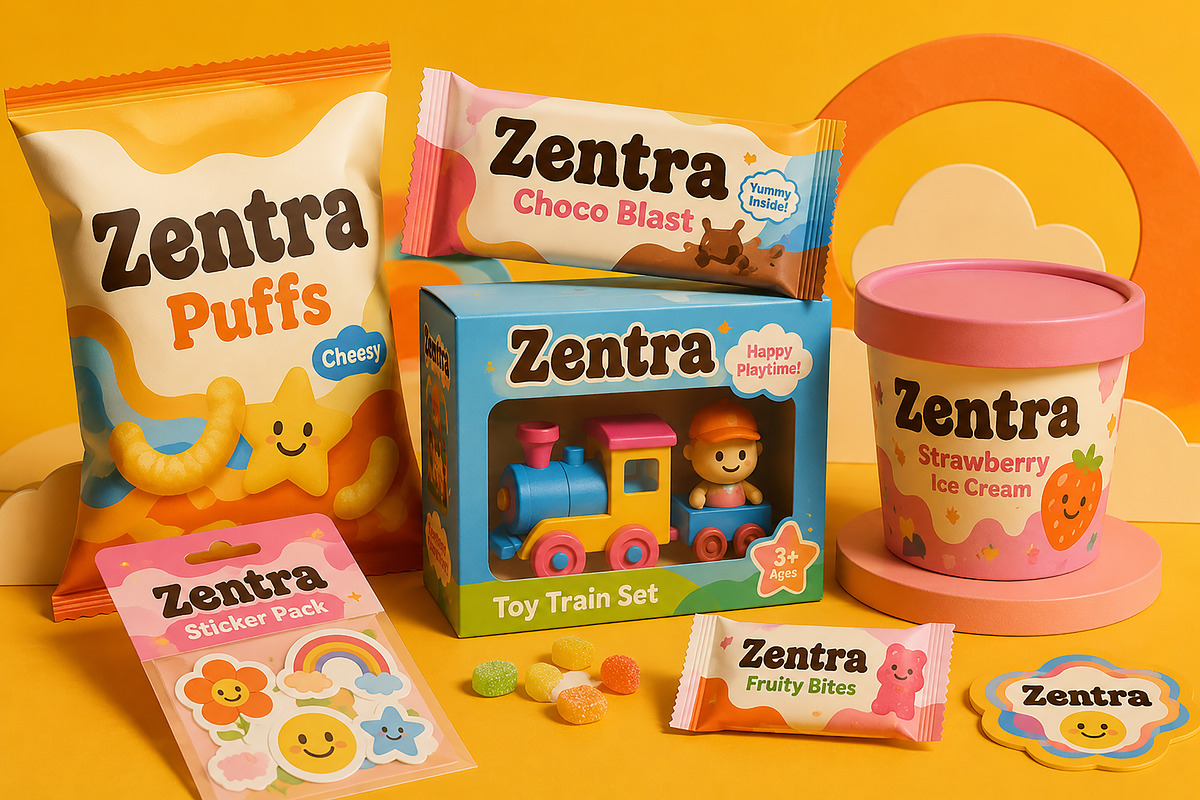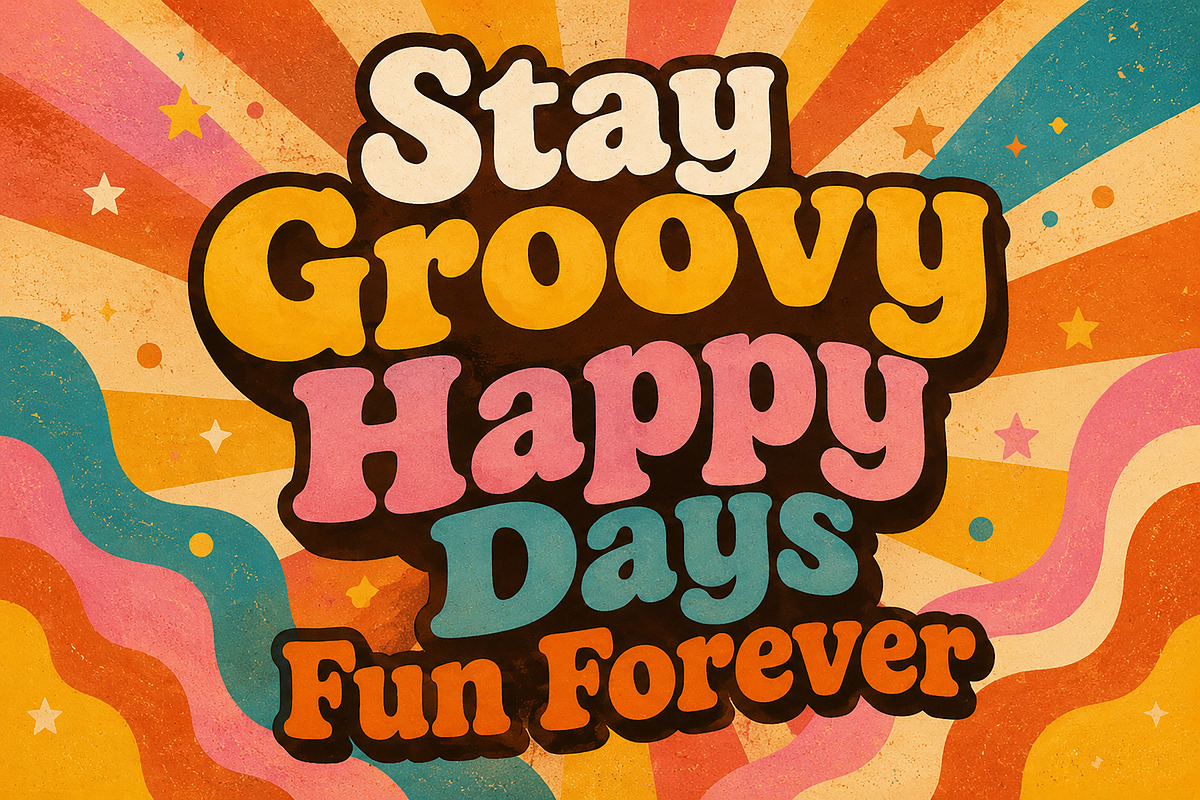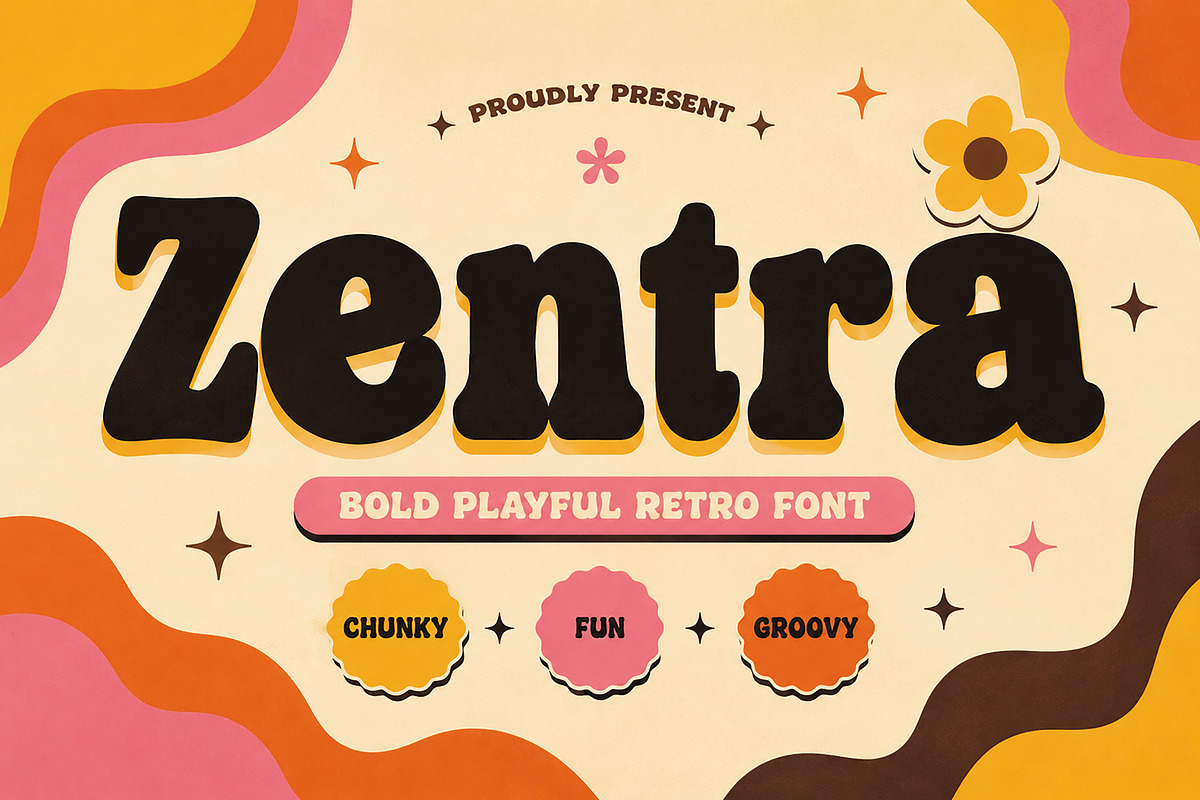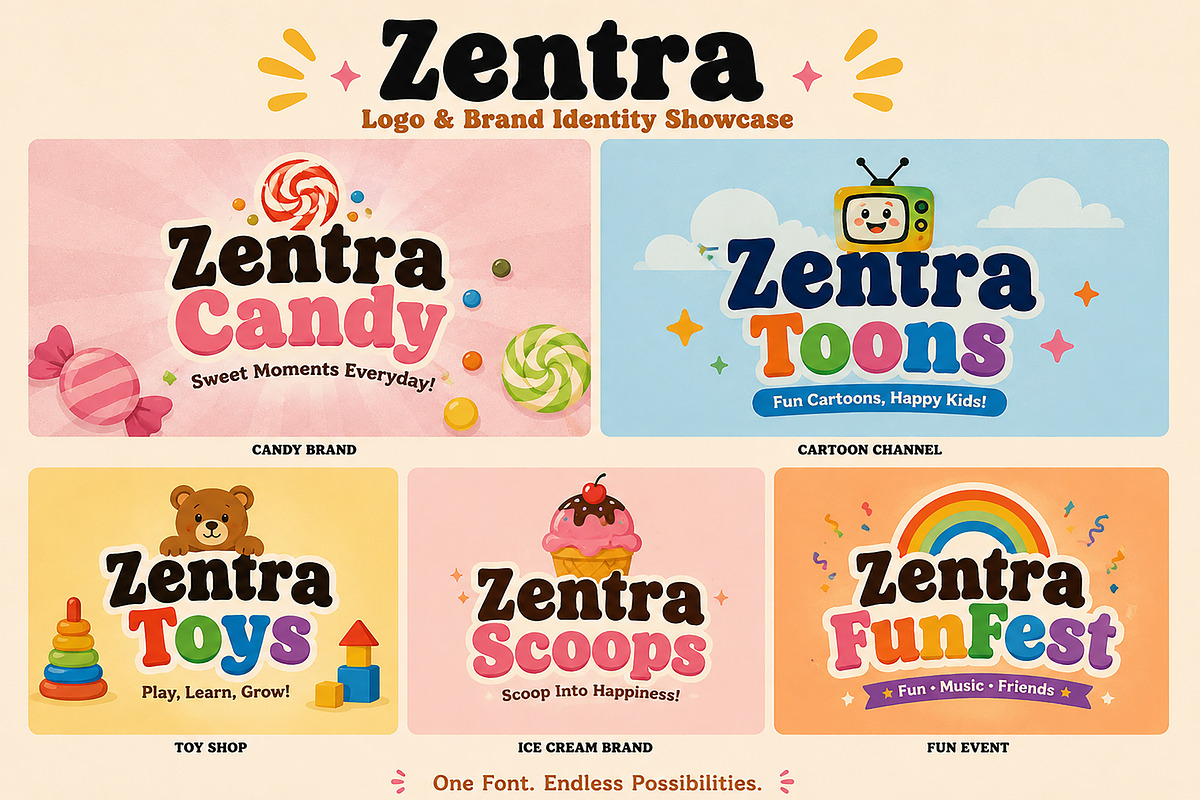
Zentra
Zentra – Bold Playful Retro Font
Zentra is a bold playful retro display font inspired by groovy 70s vibes, fun packaging, and nostalgic typography. With its chunky curves, soft edges, and energetic personality, Zentra is designed to make your text stand out with warmth, fun, and character.
Perfect for projects that need a cheerful, eye-catching, and vintage-inspired look. Whether you're creating kids branding, snack packaging, posters, logos, social media graphics, or playful merchandise, Zentra brings a bold and happy feel to every design.
Its thick letterforms and rounded shapes make it highly readable while keeping a strong retro aesthetic, making it ideal for both branding and creative display use.
• Kids Branding
• Snack Packaging
• Candy Labels
• Toy Branding
• Posters
• Logo Design
• T-Shirt Design
• Social Media Graphics
• Sticker Design
• Book Covers
• Event Branding
• Retro-Themed Projects
• Uppercase & Lowercase
• Numbers & Punctuation
Bring fun, boldness, and groovy retro energy into your next project with Zentra.